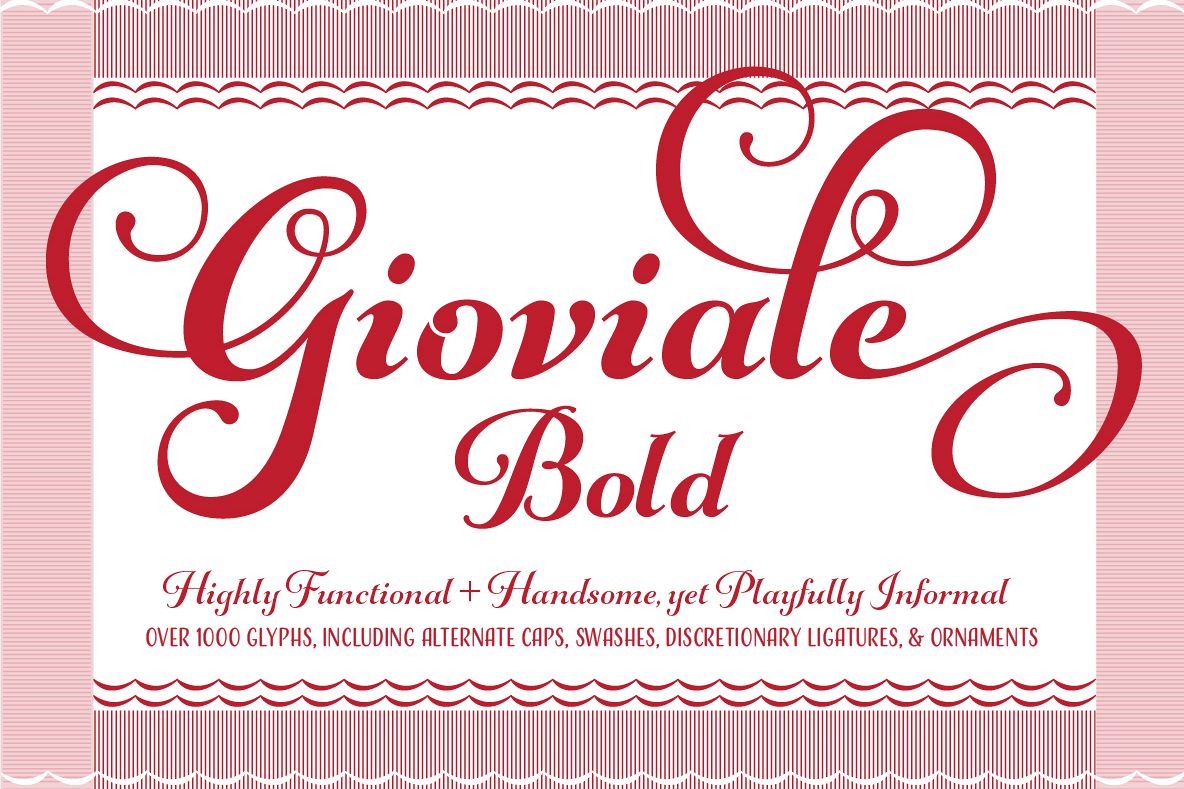
Gioviale is a unique hybrid that seamlessly blends an italic and script typeface with flair and elegance, and carryies just a hint of tailored and clean, structured underpinnings. Its versatility is exemplified in its greater readability at small sizes compared to other scripts. Gioviale includes an entire set of alternate swash caps, 20 ornaments, 20 discretionary ligatures, and 300 swashes, which include a standard uppercase set for more traditional text settings, and a swash uppercase set which are even more flourished.